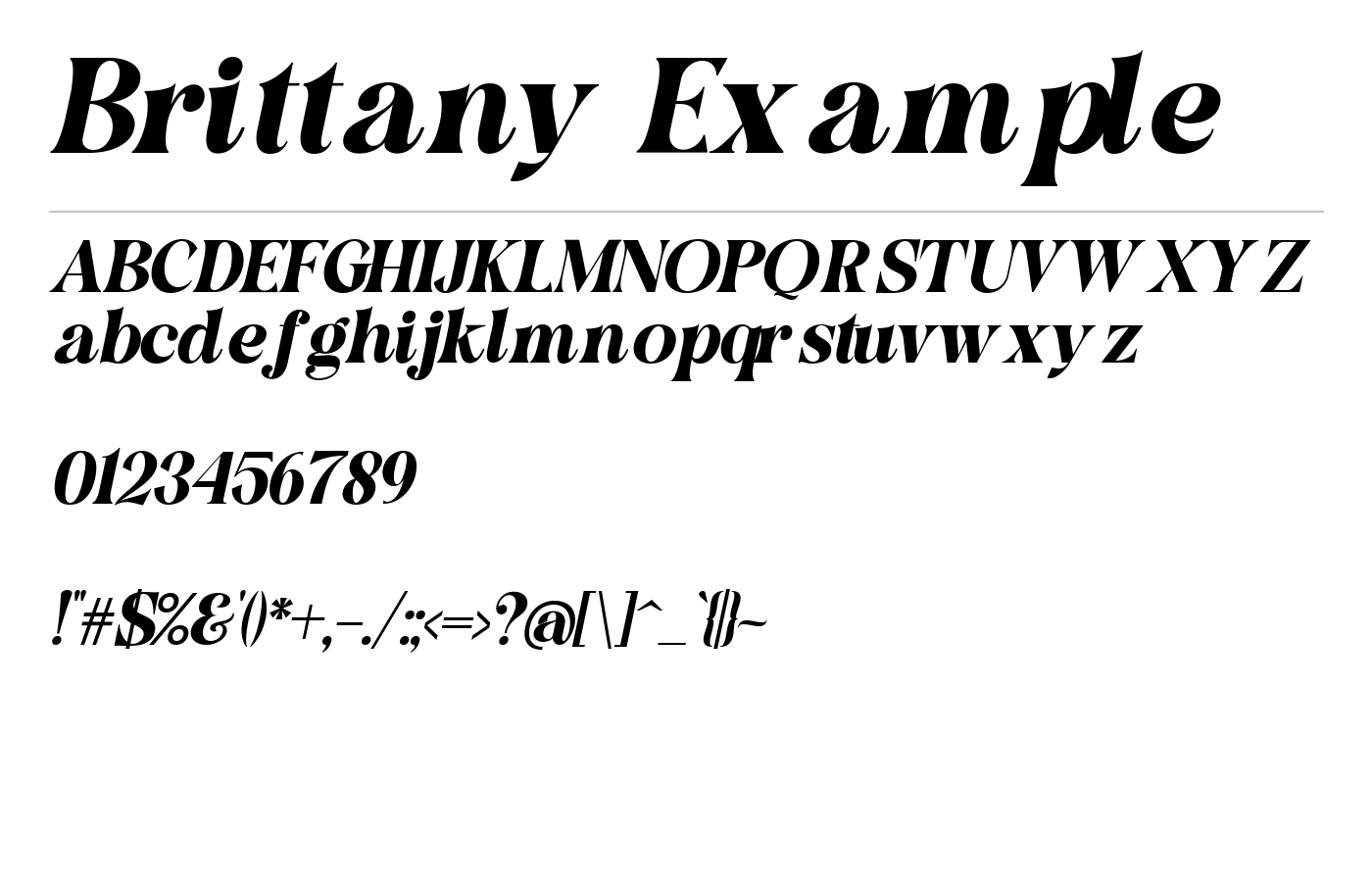
Brittany Example is a sophisticated serif font with a classic italic style featuring strong contrast between thick and thin strokes, elegant bracketed serifs, and a slightly condensed width. Its refined letterforms and traditional double-story characters give it a timeless, upscale feel, making it ideal for luxury branding, editorial headlines, and stylish packaging. The font’s graceful curves and sharp details communicate elegance and professionalism, perfect for projects seeking a classic yet expressive touch.
Brittany Example Font
About Brittany Example Font